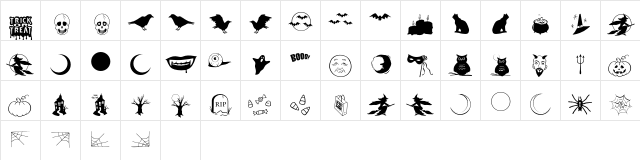
Trick or Treat 2 OT Regular Font Preview
Trick or Treat 2 OT Regular
Trick or Treat 2 OT Regular Font Details
| Foundry | BV Fonts |
| Designer | Jess Latham |
Design Context for Trick or Treat 2 OT Typeface
Trick or Treat 2 OT is a composed and adaptable typeface that performs quietly and consistently across a wide range of design contexts.
Pro Tip: Pair Trick or Treat 2 OT with a font of contrasting weight or personality to build a more expressive typographic hierarchy.